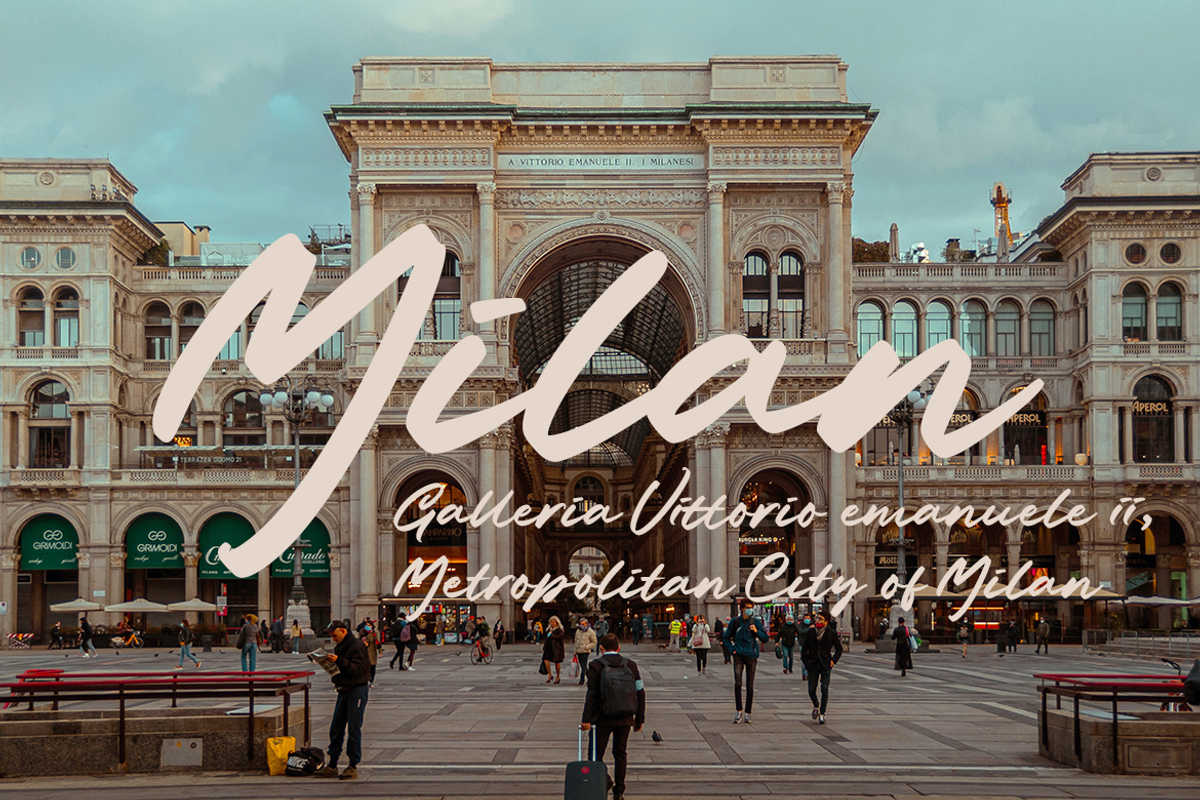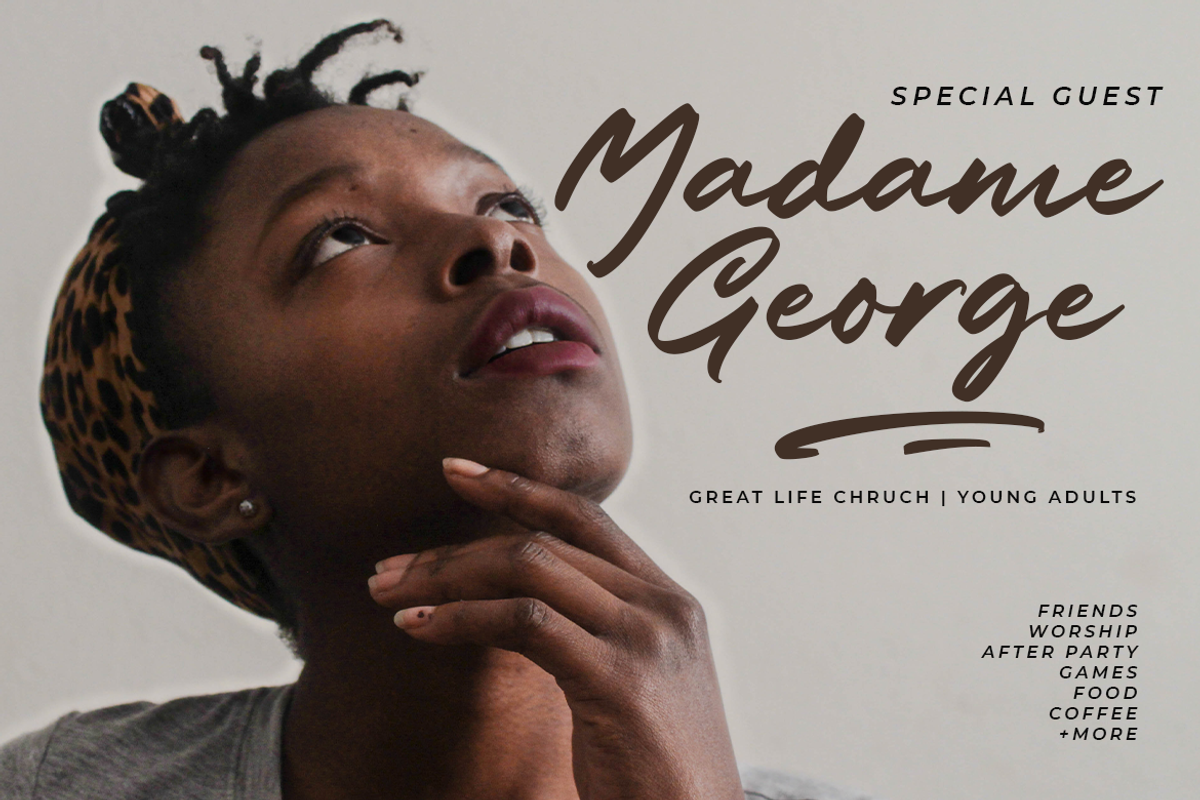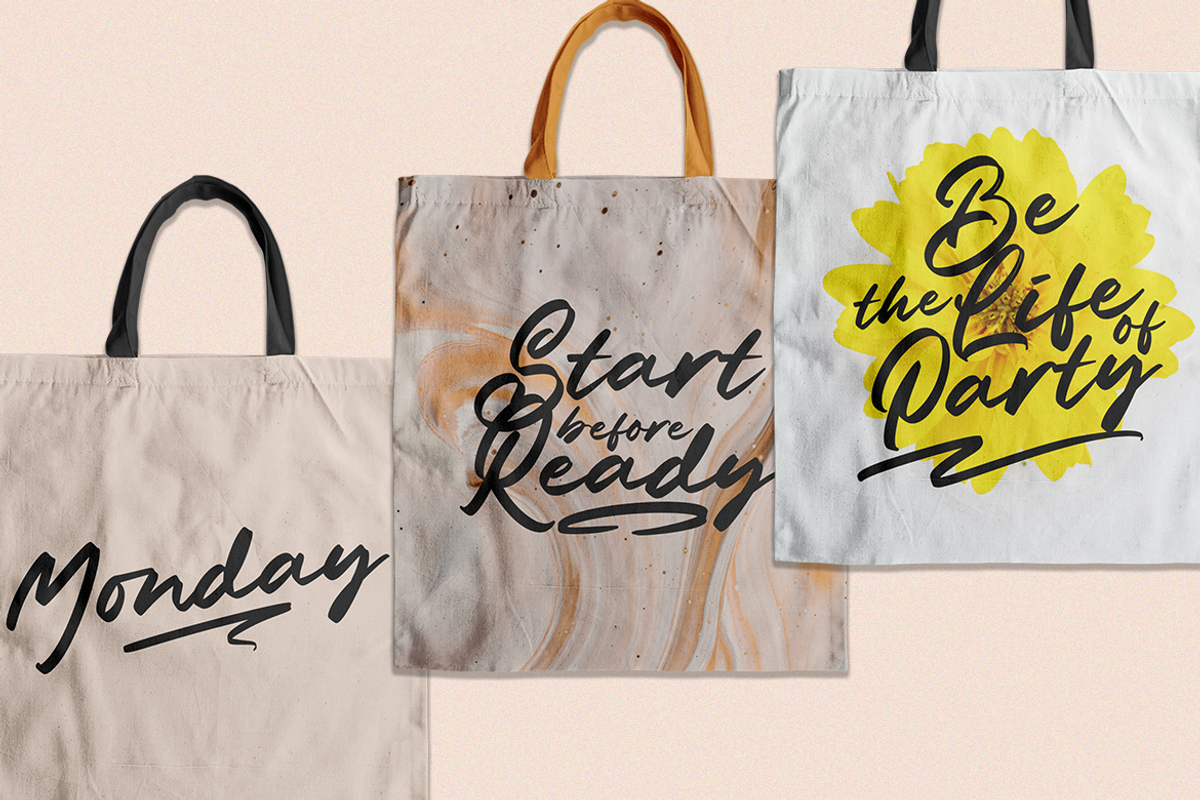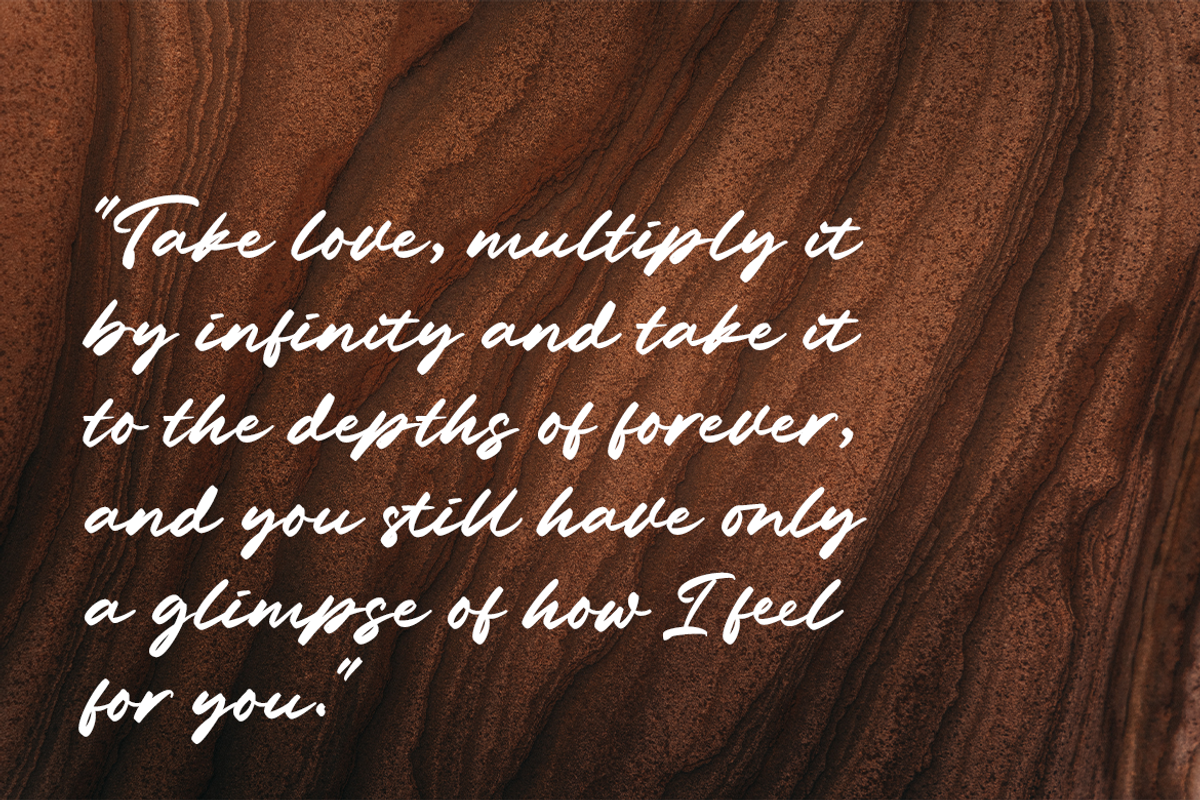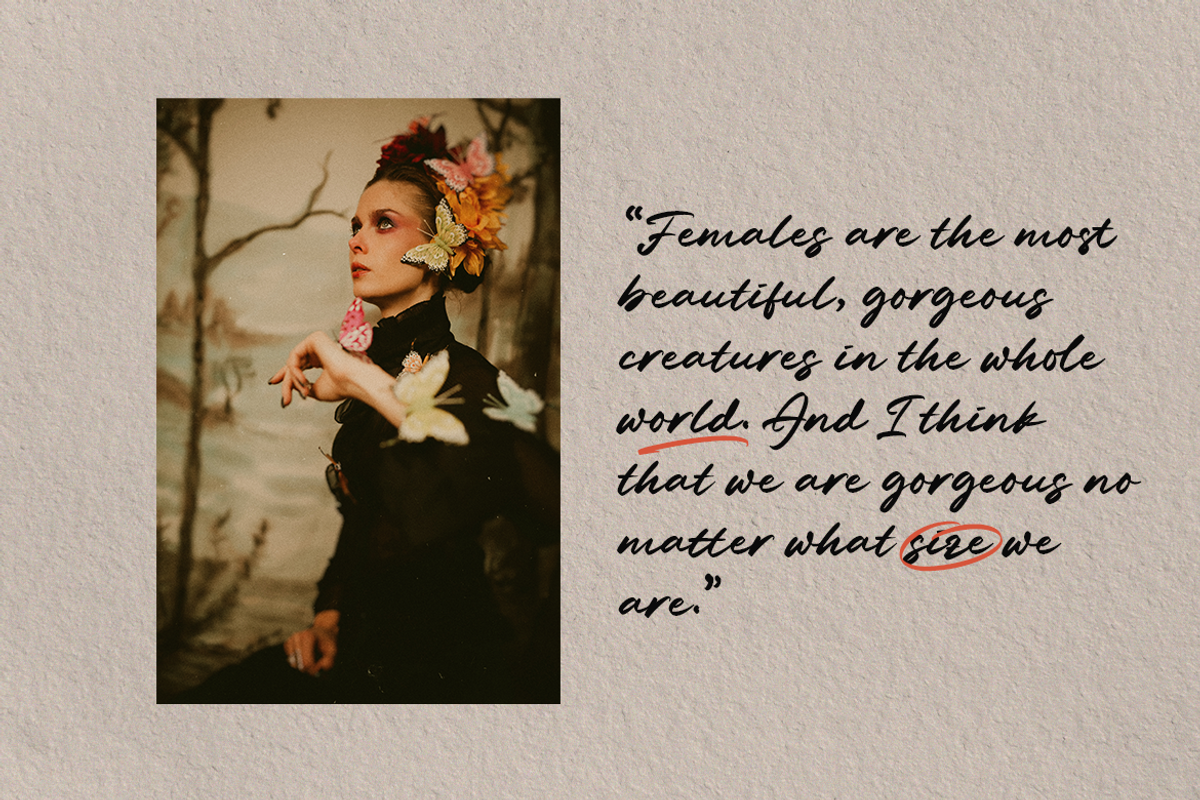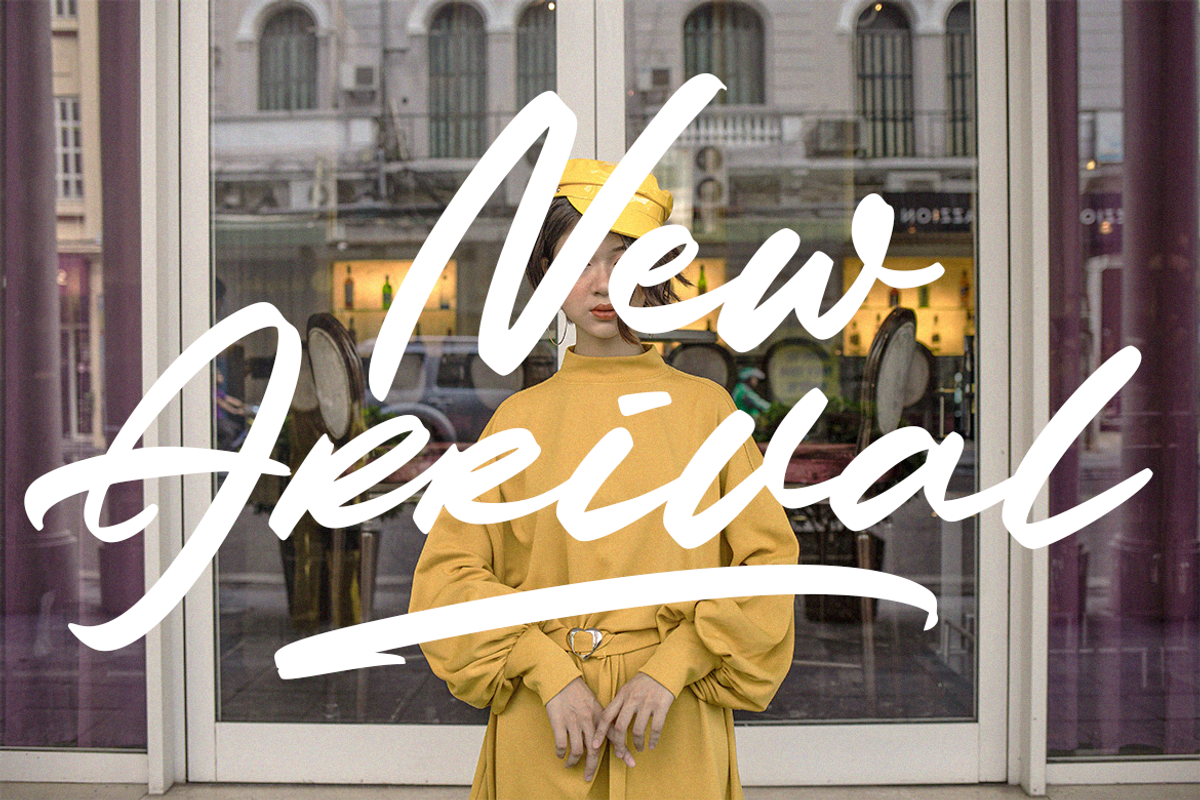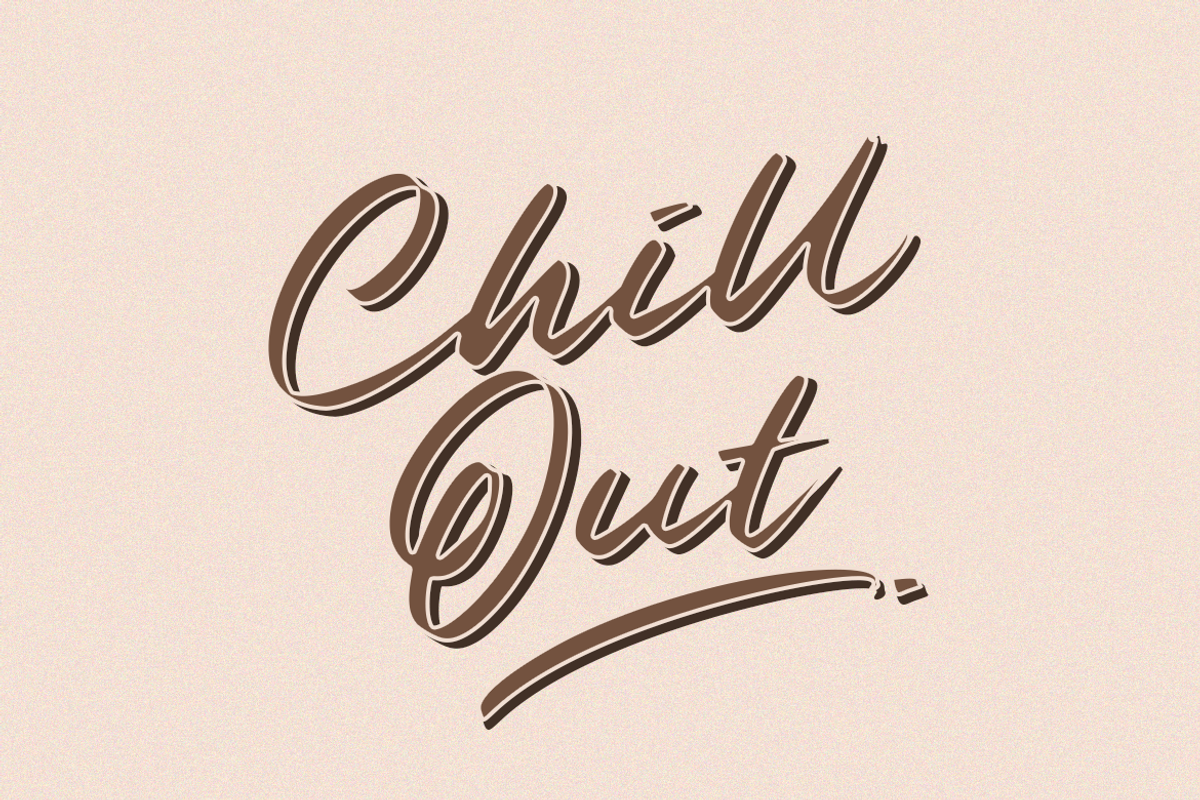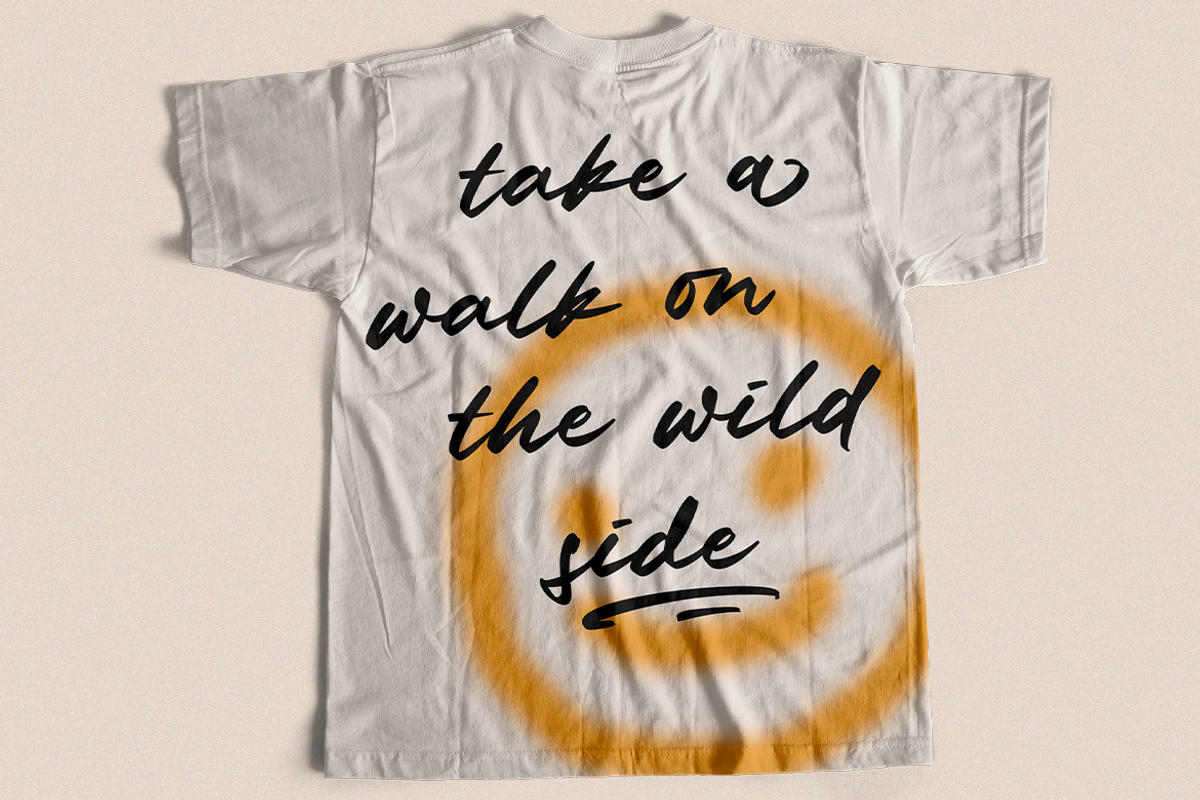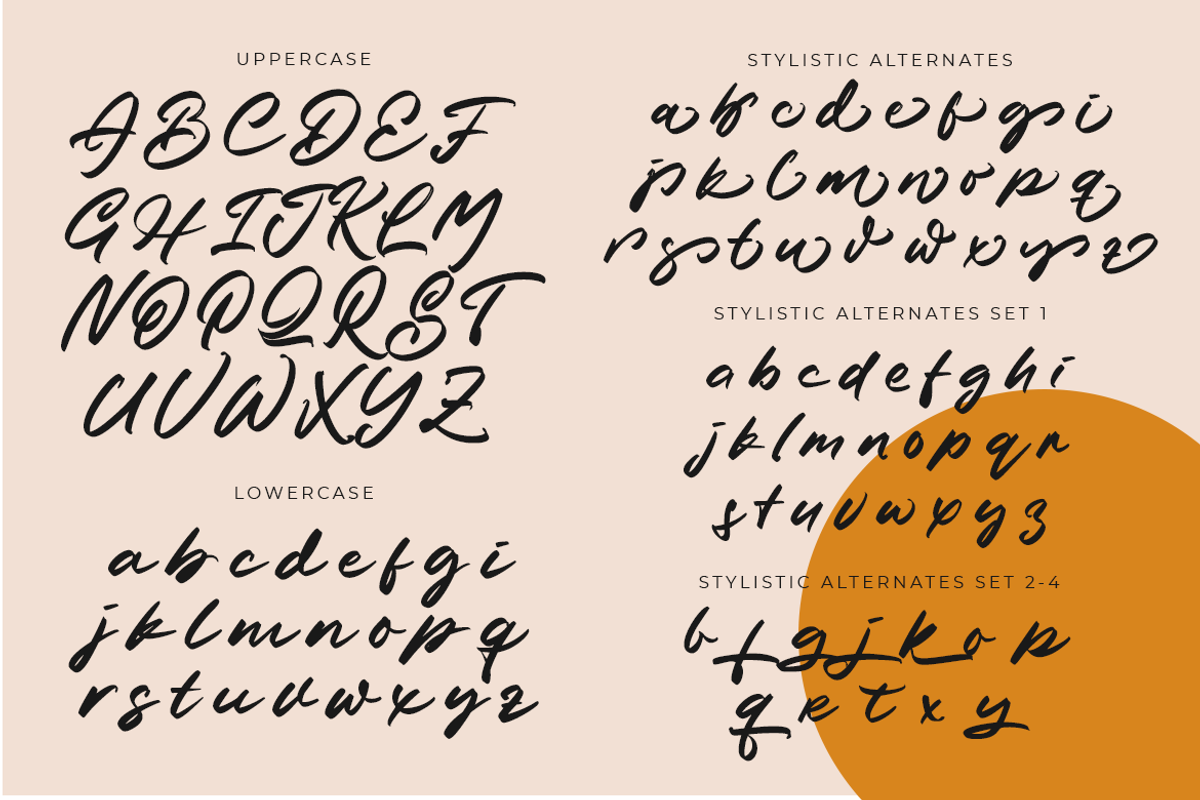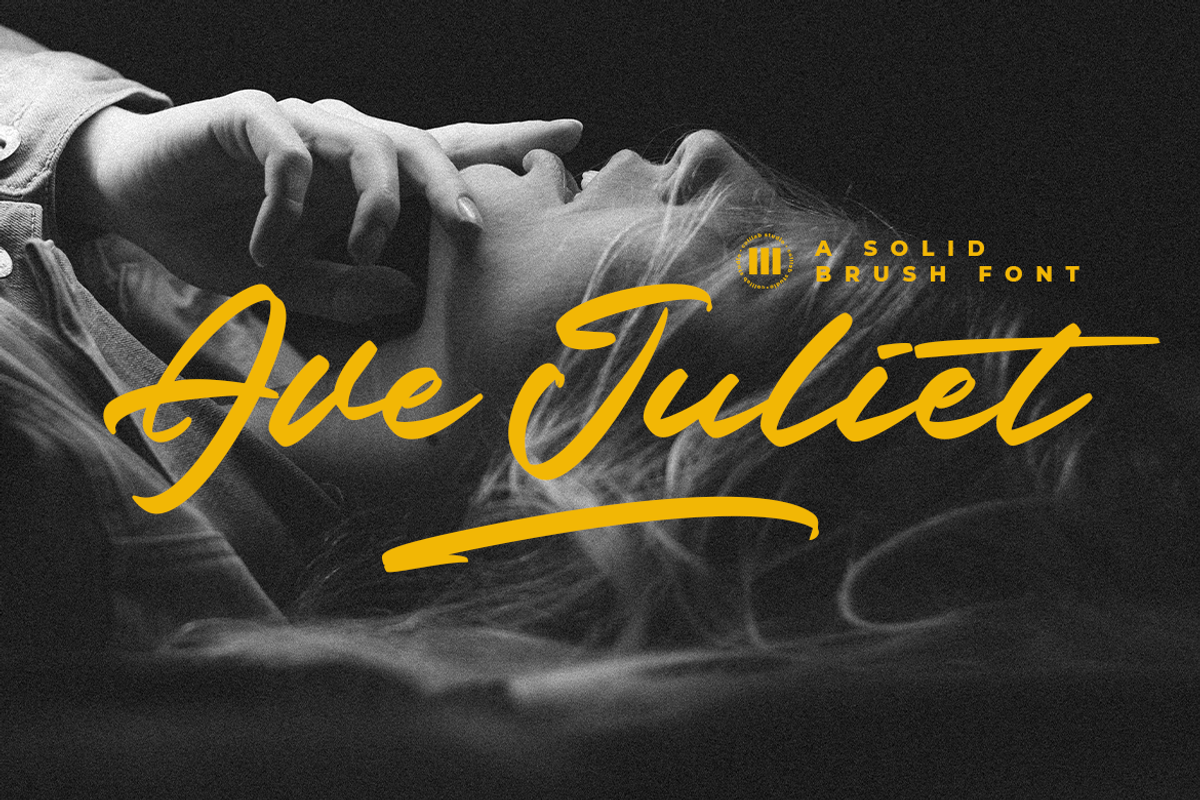
Ave Juliet | A Solid Brush Font
Ave Juliet is a solid brush font which is perfect for a wide range of design projects. From logos to company branding to creative headlines. from fashion brand to beauty products brand, Ave Juliet will always look professional, easy to read and ready to work on whatever project you have in mind.
- 316 Glyps,
- 2 Sets of Stylistic Alternates
- 20 + Ligatures
- 20 + Swashes
- Multilanguage Support ( 64 Languages )